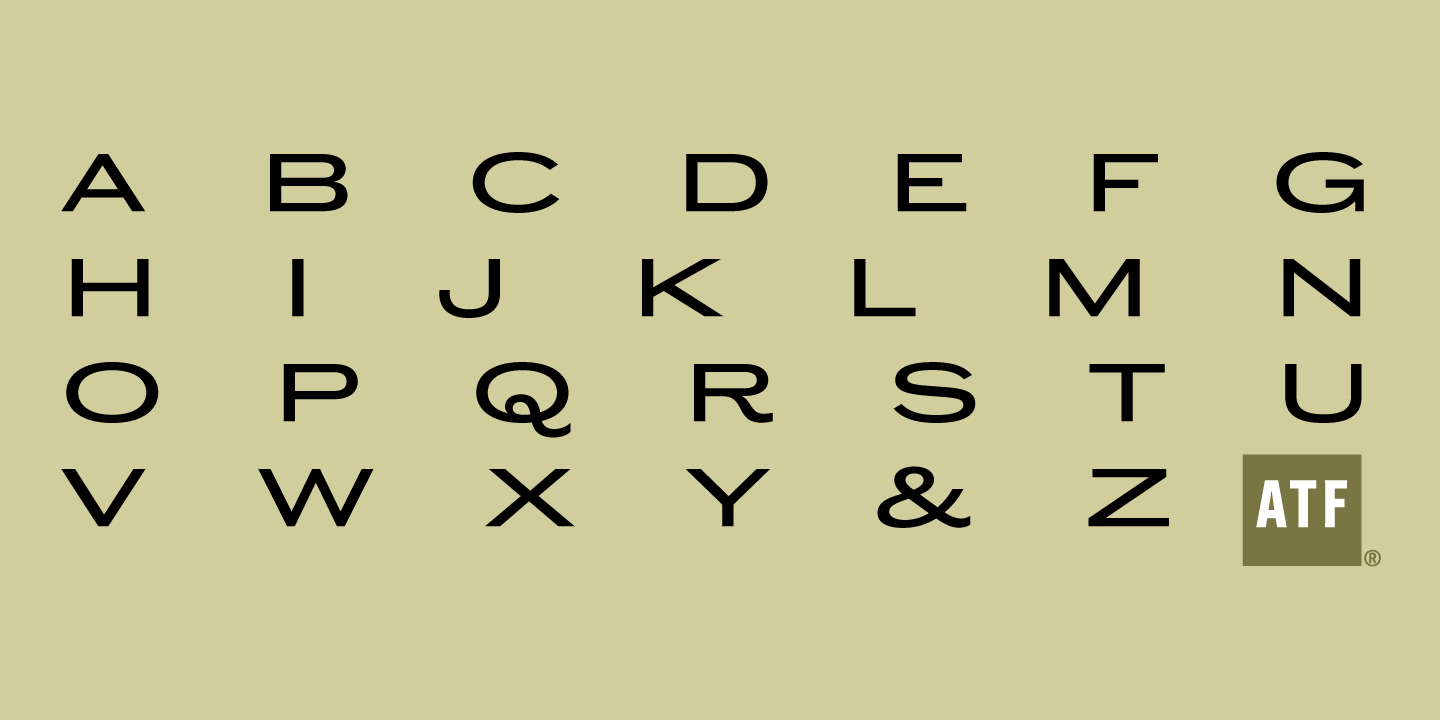
ATF Wedding Gothic Font is ideal for elegant wedding invitations, luxury bridal boutiques, sophisticated ceremony programs, refined reception materials, graceful anniversary celebrations, upscale wedding planning services, distinguished matrimonial communications, classic engagement announcements, timeless love letters, and prestigious wedding venue branding. This distinguished typeface excels in applications where matrimonial elegance and wedding sophistication need to be communicated with refined romance and timeless grace that embodies the essence of eternal love and the sophisticated beauty found in classic wedding traditions and ceremonial celebrations.
What makes ATF Wedding Gothic Font exciting is its remarkable ability to capture the timeless elegance and romantic sophistication of traditional wedding typography through its gracefully structured letterforms that seem to carry the weight of sacred vows and the enduring beauty of matrimonial commitment. The font embodies the spirit of wedding tradition with its refined construction and ceremonial proportions that suggest the formal dignity of wedding ceremonies and the elegant presentation that makes wedding moments truly memorable. Its carefully crafted character details and romantic personality create an atmosphere of sacred celebration that resonates with couples, wedding planners, and bridal professionals who understand the importance of creating beautiful, meaningful presentations for life's most precious moments.
The ATF Wedding Gothic Font family typically includes Regular and Bold weights, each maintaining the signature elegant characteristics and wedding sophistication. Some versions offer decorative variants with enhanced romantic elements, alternative character sets with wedding symbols and ceremonial flourishes, and specialized elements that amplify the matrimonial aesthetic. The family may also include condensed styles for efficient invitation layouts and display cuts optimized for maximum elegant impact in wedding and bridal applications requiring authentic romantic sophistication and ceremonial dignity.
Whether you're creating wedding brand identities, bridal marketing materials, or matrimonial celebration communications, ATF Wedding Gothic Font Free Download delivers the perfect romantic elegance your wedding-focused projects deserve. Its matrimonial character and ceremonial styling make it an invaluable choice for wedding planners, bridal boutiques, and wedding venues working in luxury weddings, romantic celebrations, and elegant matrimonial services sectors where authentic wedding sophistication and timeless romantic beauty are essential for creating unforgettable experiences that honor the sacred nature of matrimonial commitment and celebrate love's enduring promise.